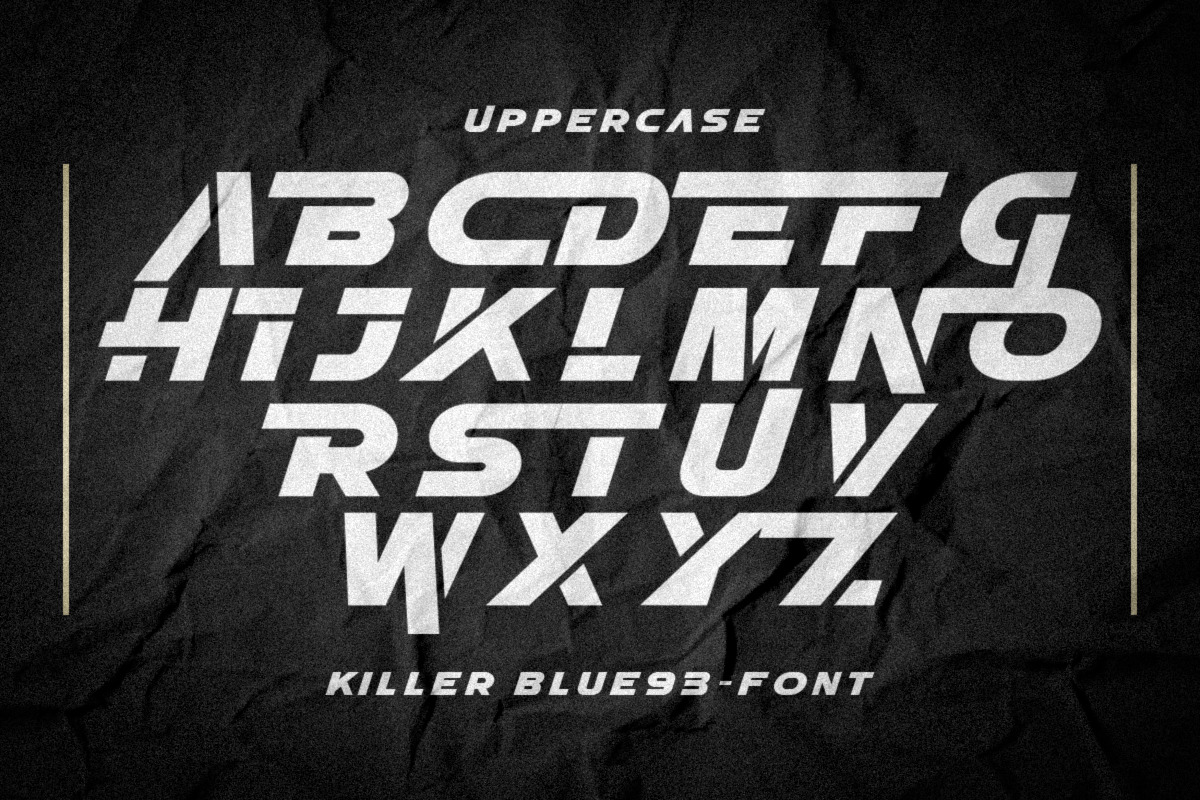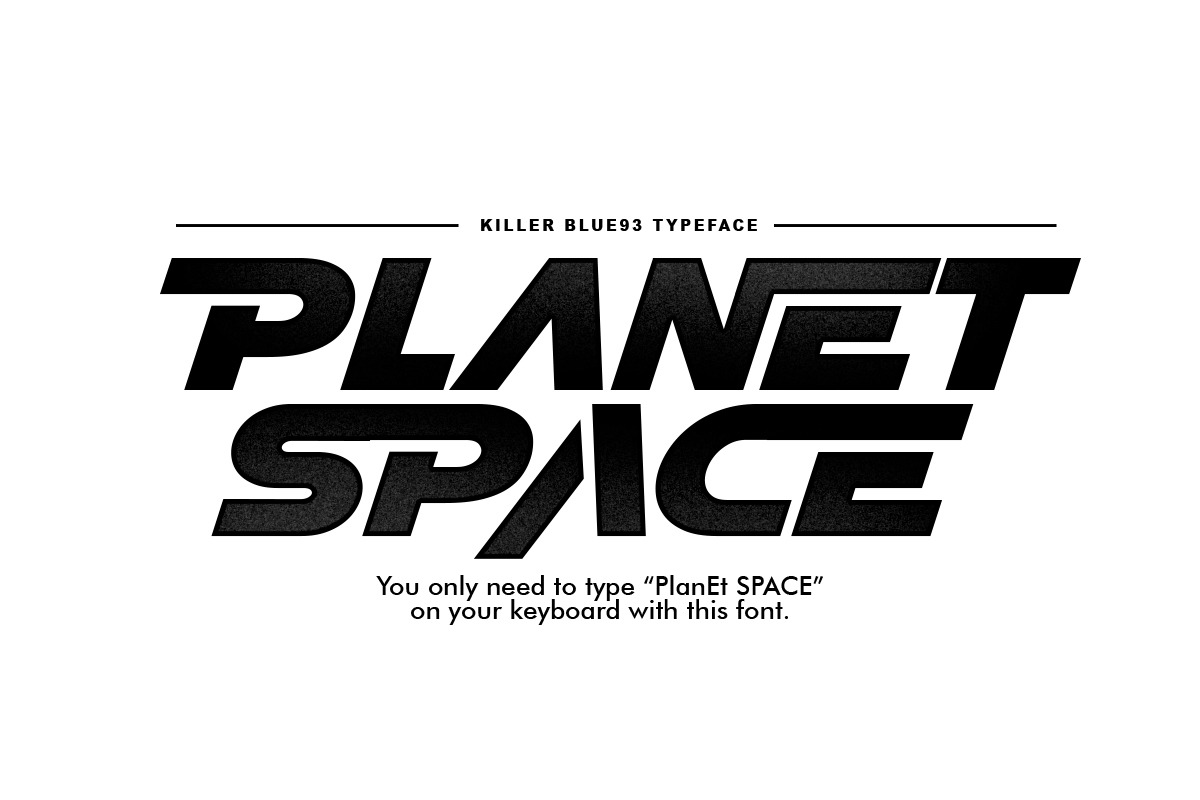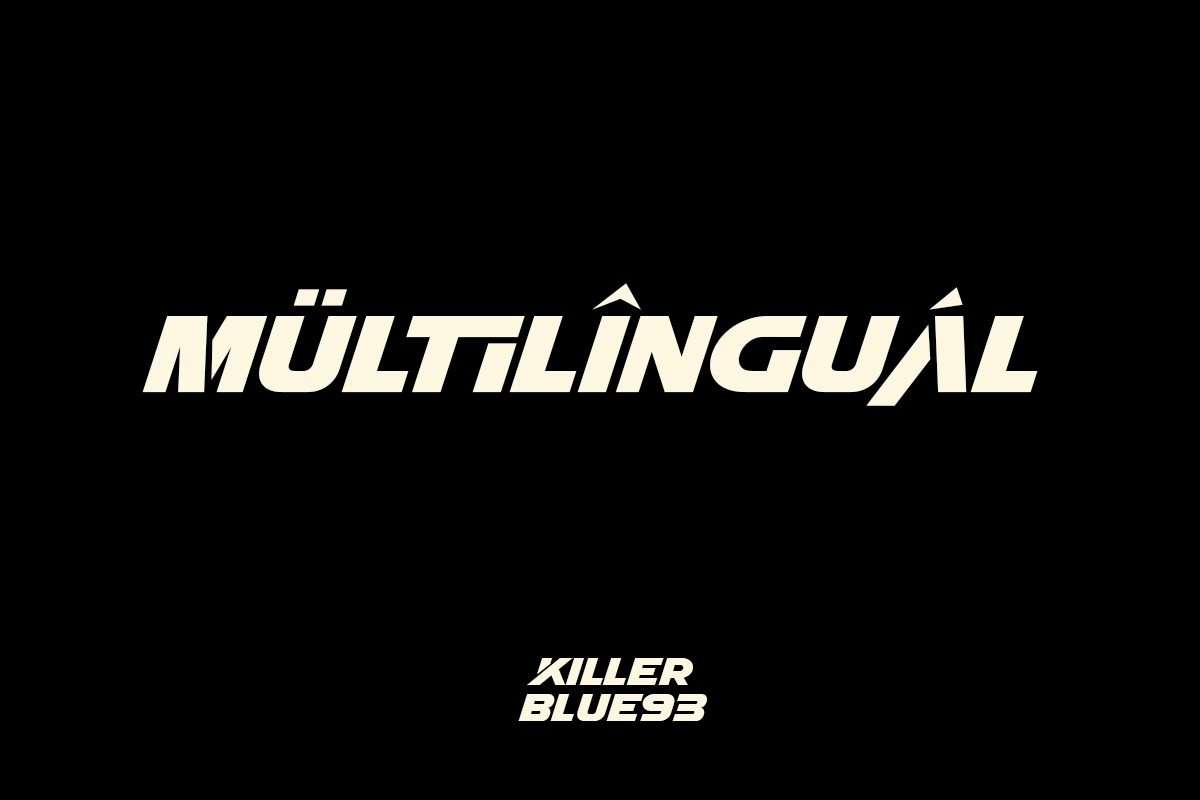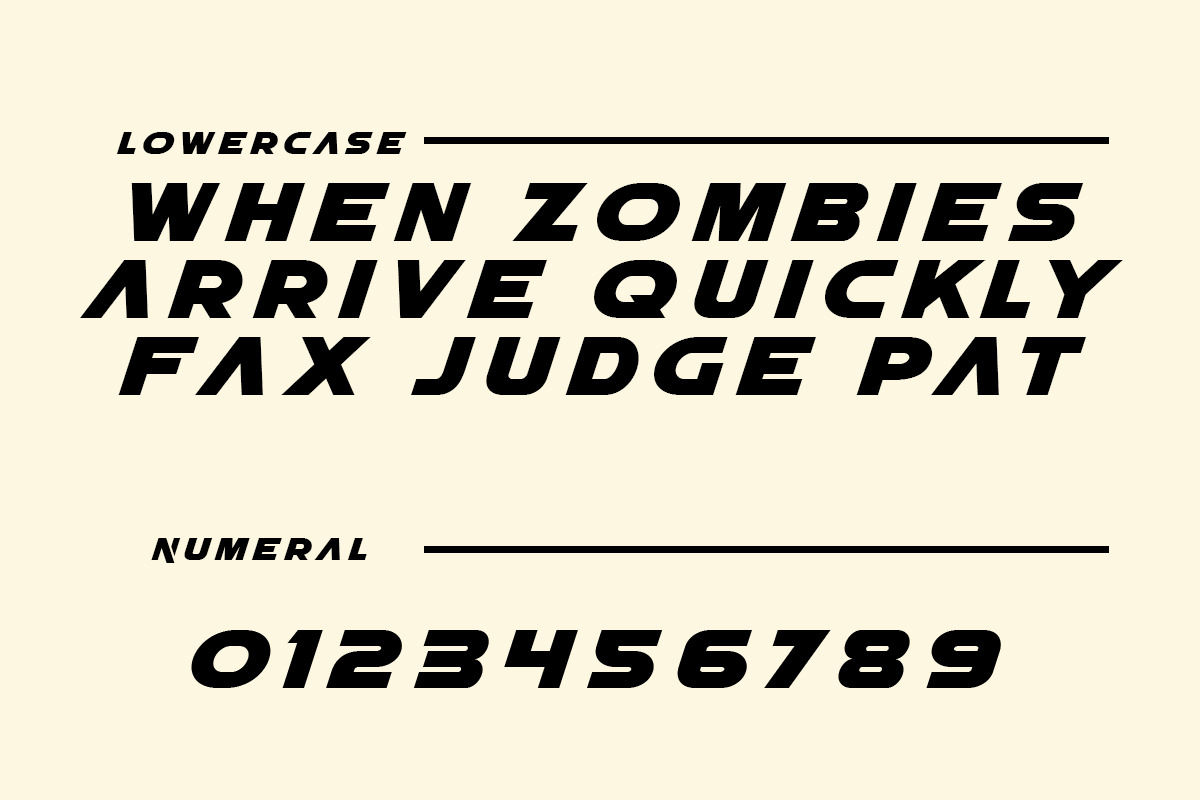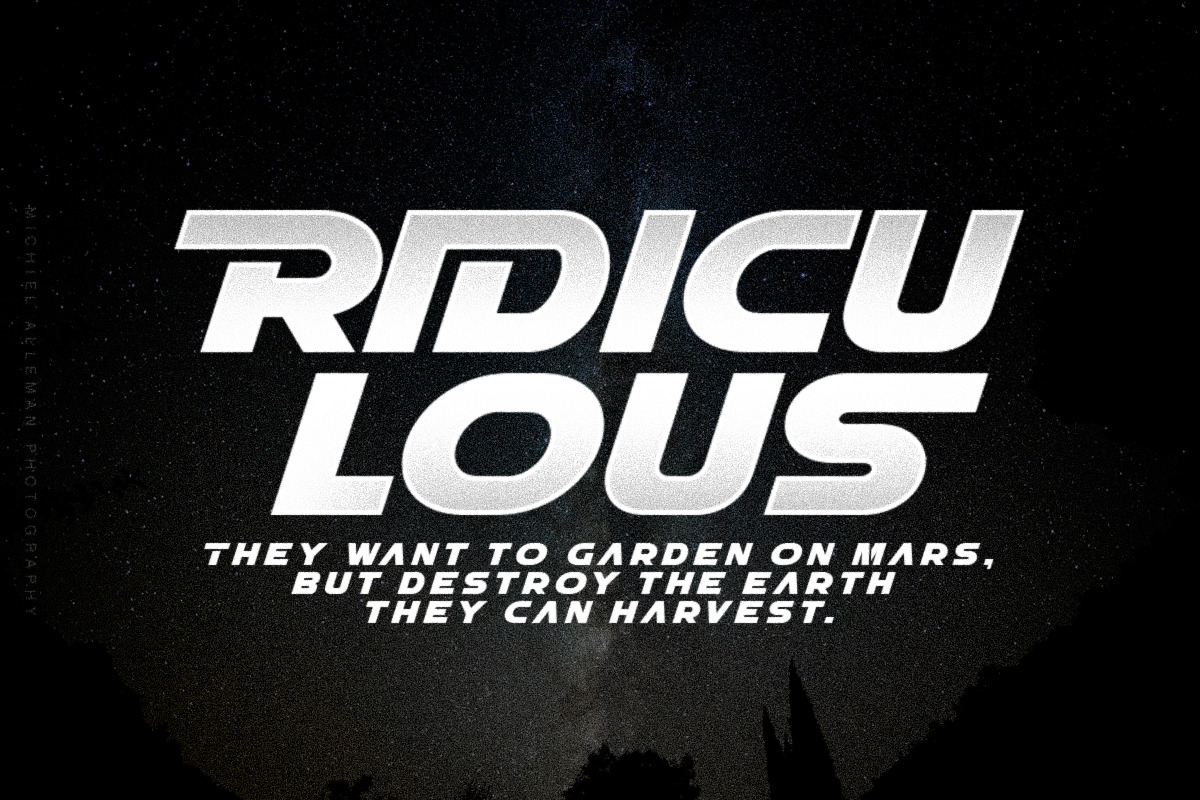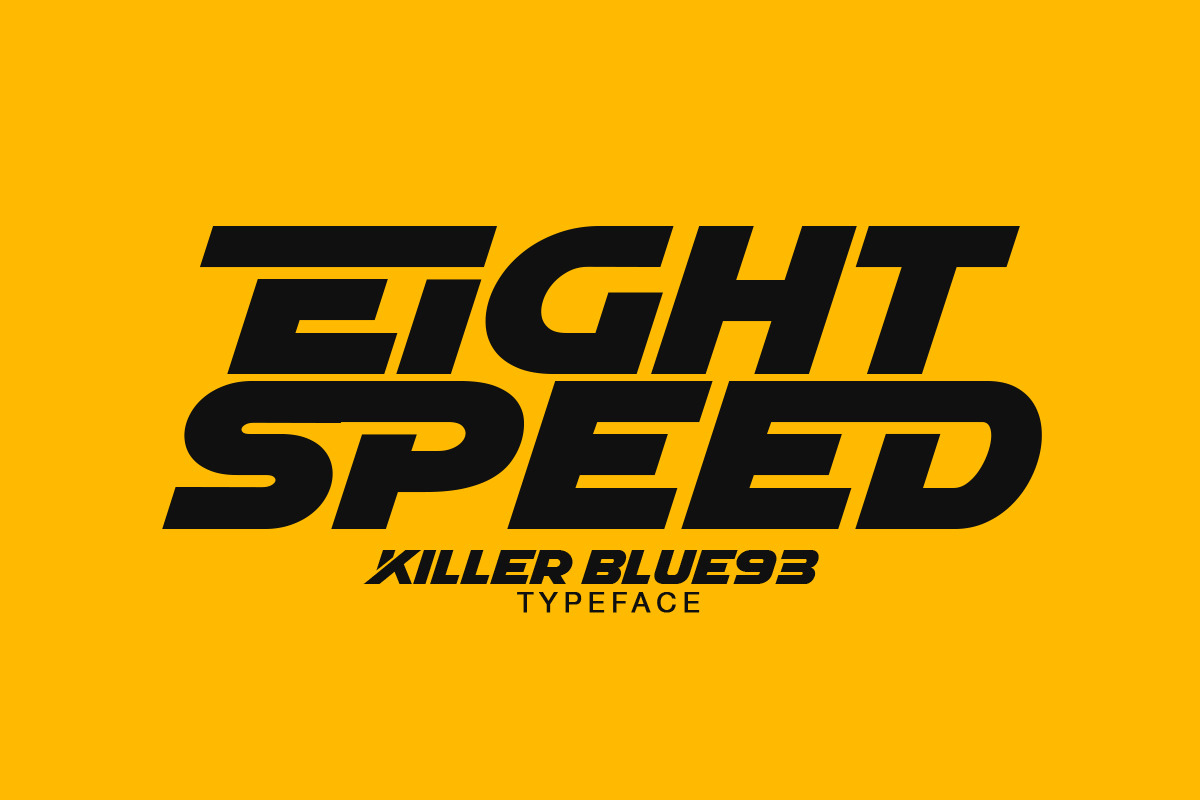
KILLER BLUE93
Complete your graphic design with the font "KILLER BLUE93". It will look really cool, and this font is very easy to use at an affordable price.
how: if you want to write KILLER BLUE93 try by typing KilLER BluE93, then the effect that appears will be like a ligature.